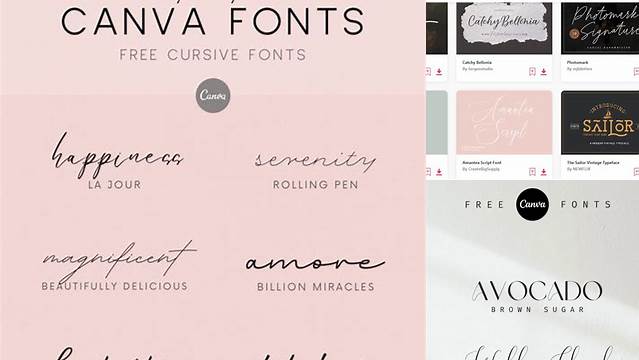
Canva's Thin Cursive Fonts: A Designer's Delight
Hey everyone! Let's dive into something super cool for all you Canva lovers out there: thin cursive fonts. These fonts can seriously elevate your designs, giving them a touch of elegance, personality, and that handwritten feel we all adore. In this article, we'll explore everything you need to know about finding and using these fonts in Canva, from selecting the perfect one to incorporating them into your projects like a pro. Get ready to unlock a whole new level of design possibilities!
Finding the Perfect Thin Cursive Font in Canva
Alright, so you're ready to find that perfect thin cursive font, huh? Fantastic! Canva offers a vast library of fonts, and sifting through them can feel a bit overwhelming at first. But don't worry, I've got your back, fam. Let's break down how to locate these gems. Firstly, you need to know where to look. When you're in Canva's editor, you'll find the font selection dropdown in the top toolbar. Click on it, and you'll be presented with a list of available fonts. Now, here comes the clever part: use the search bar! Type in keywords like "cursive," "script," or even "handwritten" to narrow down your options. This will filter the font list, showing you fonts that match your search terms. But we’re not just looking for any cursive font; we want thin ones. This means we'll need to preview each font to check how delicate its strokes are. Scroll through the results, and take a moment to preview each font. Look closely at the characters and their weight. Is it a bold, thick cursive, or something more refined and slender? Keep in mind that the thinness of a font can vary, so experiment with different font sizes to get a feel for how it looks at different scales. Consider the overall aesthetic of your project. A thin cursive font can be great for headings, quotes, or adding a touch of sophistication. You can always change the color of the font; lighter colors work great for giving an ethereal touch. Also, you can always change the size of the font, and the space given to the letters. Finally, don’t forget about font pairings! A thin cursive font often pairs beautifully with a clean, sans-serif font. Think of them as complementary flavors, a combination that provides contrast and balance to your design. Some of these beautiful fonts include: Dancing Script, Great Vibes, Allura, and Alex Brush. Canva frequently updates its font library, so check back often and explore new additions. Once you've found a few favorites, try them out in different projects. See how they look with different backgrounds, colors, and images. Remember, there is beauty in simplicity, so don't hesitate to experiment. Also consider the readability of your font. Make sure that your text is readable. The purpose of font is to make the text more appealing, so use it wisely. Have fun with the process, and enjoy discovering the perfect thin cursive fonts for your designs in Canva! It's all about finding the right font that speaks to your design and brings your creative vision to life.
Analyzing Font Styles
Understanding the various styles of cursive fonts is an important part of this process. Let's break down some of the common stylistic elements you might encounter. First, consider the flow of the font. Some cursive fonts have a very fluid, connected style, where each letter seamlessly flows into the next. These fonts are great for creating a sense of elegance, such as in wedding invitations or formal announcements. On the other hand, you have cursive fonts with a more separated or disjointed style. These fonts might have a more casual, playful vibe, making them a good fit for projects aimed at a younger audience. Another important element is the stroke thickness. As we discussed earlier, we are specifically looking for thin cursive fonts. But even within the realm of thin fonts, you'll find variations. Some fonts have a consistently thin stroke throughout, while others might have a slight variation in thickness, giving them a more organic, handwritten feel. Then there's the slant of the font. Some cursive fonts are upright, while others have a noticeable slant. A slant can change the overall feeling. A font with a slight slant can convey a sense of movement and energy, while a more upright font can feel more formal and composed. Finally, examine the details of the letterforms. Look at the loops, swashes, and terminals. Are they delicate and refined, or bold and exaggerated? These details can significantly affect the character of the font. To analyze these, consider the mood you're trying to create. Looking for a touch of sophistication? Choose a font with elegant loops and swashes. Aiming for a fun and friendly feel? Go for something with more playful terminals. Experimenting with different styles is the best way to find the right font for your projects.
Utilizing Canva's Search Filters
Canva's search filters are your best friend when hunting for those elusive thin cursive fonts! Let's go through some handy tips on how to make the most of them. Remember the keyword search? Using terms like "cursive," "script," and "handwritten" is a great starting point. But let's take it a step further. You can also use filters to narrow down your search. Canva allows you to filter by font style, like "serif" or "sans serif," but unfortunately, there isn't a direct filter for "thin." However, the key is to combine the keywords with visual inspection. Once you've entered your initial search term, take a good look at the font previews. Scan through the results, and focus on the fonts that visually appear to be thin and delicate. It's all about the visual assessment! Another trick is to use the font categories. Canva categorizes fonts based on their overall style, so explore the categories that seem relevant to your search. For instance, you might find a "handwritten" category or a "script" category, where you can discover new fonts. These categories serve as a curated selection. If you have a specific project in mind, think about the tone or mood you're trying to create. Are you aiming for something elegant, playful, or modern? This will help you narrow down your search. Use your project's theme as a filter. Try using the filter features to sort through the massive selection of fonts offered. By using the search filters, you can save yourself time and effort in the quest for the perfect font. Remember, practice makes perfect. The more you explore Canva's font library, the better you'll become at finding the fonts that suit your needs.
Best Practices for Integrating Thin Cursive Fonts
Alright, you've found your dream thin cursive font in Canva. Now what? It's time to learn how to effectively integrate it into your designs! Let's dive into the best practices to ensure your designs look amazing. Firstly, readability is key. Thin cursive fonts can be beautiful, but they can also be tricky to read, especially at smaller sizes. Always prioritize readability. Use your font sparingly. Reserve your thin cursive font for headings, titles, or short phrases. Think of it as the star of the show. Don't overwhelm your design with it. Secondly, consider the contrast. Pair your thin cursive font with a more simple font. This is a technique of contrast that provides balance and visual interest to your design. Using a clean, sans-serif font for body text can ensure readability and provide a clear separation between your headings and content. Also, pay close attention to the size and spacing. Adjust the font size and leading (line spacing) to ensure optimal readability. Sometimes, a slightly larger font size or more generous line spacing can make all the difference. Also, you should consider the color scheme. Use a color that complements your background. If you're using a dark background, use a light-colored cursive font. Conversely, if you have a light background, try a darker font. Remember, contrast is your friend. One of the most important things to remember is to maintain a sense of balance. Don't overuse the thin cursive font or let it dominate your design. A good design balances the elements. Experiment with different text styles and effects in Canva. You can add outlines, shadows, or other effects to your text to enhance readability. However, don't overdo it. Keep your font clear and readable. Before you finalize your design, be sure to test it on different devices and screen sizes to see how it looks. What works on your computer screen might not look the same on a mobile device. By following these best practices, you can create stunning designs that showcase the beauty of your thin cursive fonts.
Pairing Fonts for Maximum Impact
Font pairing is a skill, and it's all about creating visual harmony. You want fonts that complement each other. So, what works best with those elegant thin cursive fonts? Let's explore some perfect pairings. First off, the most common combination is a thin cursive font with a clean sans-serif. Sans-serif fonts are straightforward and easy to read, and they create a great contrast with the delicate nature of cursive fonts. For example, pair a thin cursive font like Allura with a sans-serif font like Open Sans or Lato. These sans-serif fonts work together, making your design a treat for the eyes. You could pair a beautiful cursive font with a serif font. Serif fonts have small decorative strokes, which can add a touch of elegance and sophistication. Consider a serif font like Playfair Display or Lora for headings or titles. The important thing is balance. Avoid pairing two very decorative fonts together. The result may look like a mess. Another cool option is to use a modern sans-serif. These fonts have a sleek, minimalist look. A thin cursive font paired with a modern sans-serif font can be a great choice for contemporary designs. Keep in mind that the color and spacing also play a vital role. The color should contrast, and the spacing should be wide enough to give breath to the text. Also, the hierarchy is very important when using this pairing. Use the thin cursive fonts for headers and titles to add an elegant look. This combination of font pairings works great for all sorts of designs, such as wedding invitations, posters, and other social media designs. By experimenting with different font pairings, you can create designs that are both visually appealing and easy to read.
Ensuring Readability in Your Designs
Readability is the cornerstone of any successful design. What good is a beautiful font if nobody can read it? Let's break down the key things to consider when ensuring readability, especially with those delicate thin cursive fonts. Size matters. Thin cursive fonts can be challenging to read at smaller sizes. For headings and titles, a larger font size is ideal. But if you plan to use your font for any longer text, always make sure the text is large enough for easy reading. Then consider the line height or leading. Proper line height is also important. If your lines are too close together, the text can be difficult to scan. Increase the line height to ensure that each line of text is distinct and easy to follow. The right amount of space is key. The same applies to letter spacing. Ensure that there is enough space between each letter to make it easy for the eye to differentiate each character. Color contrast is important. As a general rule, you should use the same color combination that provides the highest contrast. This will give maximum visibility. Make sure there is sufficient contrast between the text and the background. Test the text on different backgrounds to see how it looks. Adjust colors as necessary to ensure good contrast. Don't overload the font. Use the thin cursive font sparingly. It is most effective in short bursts. Avoid using it for large blocks of text. Also, use a simple, clear font for the body text. This will ensure that the body of your text is easy to read. Finally, test your design on different devices. What looks good on your computer may not look as clear on mobile. Check your design on various devices to ensure that it is readable. By following these guidelines, you can make sure that your design is accessible to everyone.
Adjusting Font Size and Spacing
Fine-tuning the font size and spacing is an art form when you're working with thin cursive fonts in Canva. These subtle adjustments can make a huge difference in readability and overall design appeal. Let's get into it! First, let's talk about font size. The ideal font size for your thin cursive font will depend on where it's being used. For headings or titles, you have more freedom to go larger. The key is to ensure the font is big enough to make an impact and catch the eye. For smaller text elements, like subheadings or captions, you'll want to adjust the size so it remains readable. Experiment with different sizes and see what looks best in your design. Next, adjust the letter spacing. Some fonts naturally have wider letter spacing than others. You want to avoid cramped-looking text. Canva allows you to adjust the letter spacing. Increase the spacing slightly to enhance readability and create a more airy feel. Conversely, if you feel the letters are too far apart, you can decrease the spacing. You must find that sweet spot to optimize your text. Don't forget about the line height. Also known as leading, line height refers to the space between lines of text. Too little space, and the lines will feel cramped and difficult to read. Too much space, and the text will seem disconnected. When working with thin cursive fonts, slightly more generous line spacing can often work well. This helps separate each line and make the text easier on the eyes. Remember that context is key. The ideal spacing and size will depend on the overall design, the specific font you're using, and the content of your text. Play around with the options, and don't be afraid to experiment. It's about what looks best in the context of your design. Finally, preview your design on different devices. What looks perfect on your computer screen might appear different on a phone or tablet. Remember, good design is all about the details. By carefully adjusting the size and spacing of your thin cursive fonts, you can create designs that are both beautiful and effective.
Creative Uses for Thin Cursive Fonts in Canva
Ready to unleash your creativity? Let's explore some amazing ways you can use thin cursive fonts in Canva! First up: creating elegant invitations and announcements. Thin cursive fonts are the perfect choice for wedding invitations, baby shower announcements, and other special occasion cards. These fonts add a touch of sophistication. They can be used for names, dates, or quotes to make your design pop. Also, you can use them for social media graphics. Give your social media posts a touch of elegance and personality by incorporating thin cursive fonts into your text overlays. This is a quick way to create eye-catching social media graphics! Design quotes and inspirational messages. These fonts are excellent for creating quotes and inspirational messages. Use them to add a personal touch to your graphics. Create eye-catching logos and branding materials. Thin cursive fonts can be a great way to add a touch of elegance to your logo. Use them for your company names or taglines. This is an excellent way to create a unique and memorable logo. You can create beautiful posters and art prints! These fonts add a touch of personality to your art pieces. It's all about finding the right way to implement the font in the design. Create stunning website headers and titles. Incorporate thin cursive fonts into the headers, titles, or call-to-action buttons of your website. Use these fonts to create a welcoming and memorable brand. Also, create custom typography art. Combine your fonts with other design elements to create unique art pieces that express a certain emotion. Finally, you can experiment with different effects. You can create shadows, outlines, and textures to give your designs a unique look. Always remember that the possibilities are endless. With Canva's tools and features, you can push the boundaries of design and use thin cursive fonts to create something awesome.
Designing Elegant Invitations and Announcements
Creating invitations and announcements with Canva is a breeze, especially when you incorporate a thin cursive font! Let's talk about how to design invitations and announcements that will impress your recipients. Start by setting the tone. Choose a thin cursive font that reflects the event. For a wedding invitation, choose a font with an elegant, flowing script. For a baby shower, you might choose a more playful font. Also, you should choose a design that works for the event. Canva offers a variety of templates and design elements. Choose a template or design that complements your event. Also, you can create unique designs. You can choose the elements, and create your own invitation. Add a personal touch. Consider the colors. The color scheme should match your event. Use colors that complement the font and the overall design. Add a personal touch by including the names, dates, and details of the event. Think about the overall layout. Start with a layout that works with the font. For example, try a layout with the font as the header. Ensure that the text is legible and easy to read. Also, you should incorporate graphics and images to enhance the design. Canva offers a wide range of images that you can include. You can use images that match your event. Make sure the final product is in high-quality. The final product should be easy to print. Check that the design is readable when printed. By using these practices, you can create a beautiful and unique design.
Conclusion: Elevate Your Designs with Thin Cursive Fonts in Canva
In a nutshell, thin cursive fonts in Canva are a fantastic way to add a touch of elegance, personality, and a handwritten feel to your designs. From finding the perfect font and integrating it into your projects to mastering the art of font pairing and tackling any readability issues, we've covered everything you need to know to succeed. So, go forth and start experimenting! Canva's library is full of amazing fonts. Unleash your creativity and create stunning designs that will make everyone say, "Wow!" Keep practicing and exploring, and you'll soon become a pro at using these beautiful fonts to elevate your designs. Happy designing, and I can't wait to see what you create!